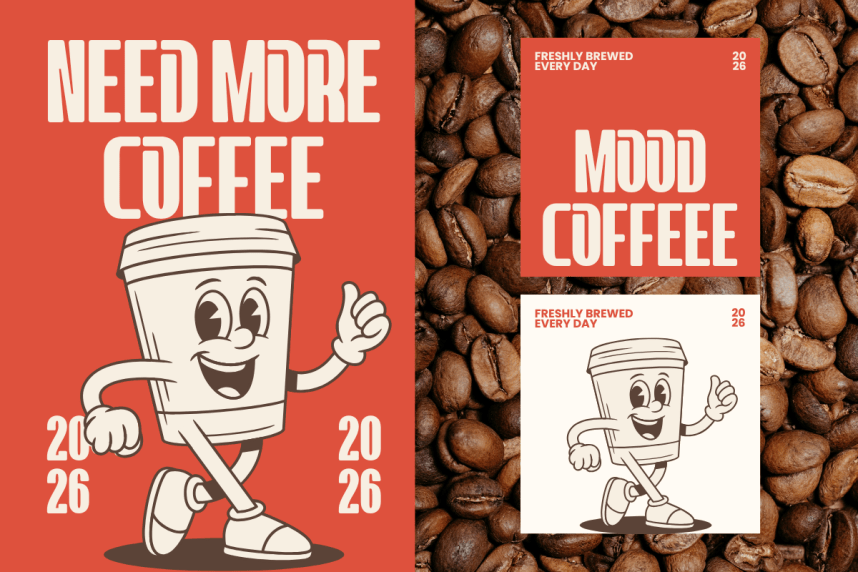
Caffein Font – Make a bold, commanding, and delightfully nostalgic statement with Caffein, an ultra-bold tall condensed retro sans serif font engineered for creators who want their headlines to pop with an energetic, cozy coffee-lifestyle charm. Meticulously structured with a heavy display weight, tall narrow baselines, and softly rounded corners, this versatile font brings an instant blend of cafe culture warmth and clean modern commercial professionalism to any creative canvas.
Whether you are an apparel designer launching a fresh streetwear collection, a graphic artist establishing a bold lifestyle or culinary brand, or a high-volume print-on-demand seller optimizing listings for search engine conversions, Caffein delivers unmatched readability and outstanding shelf appeal. For the crafting community and DIY enthusiasts, every single glyph has been technically polished and vector-optimized to ensure a smooth, effortless cutting and weeding experience on digital cutting machines like Cricut and Silhouette. Bring the powerful, compact, and timeless aesthetic of Caffein into your commercial design toolkit today!